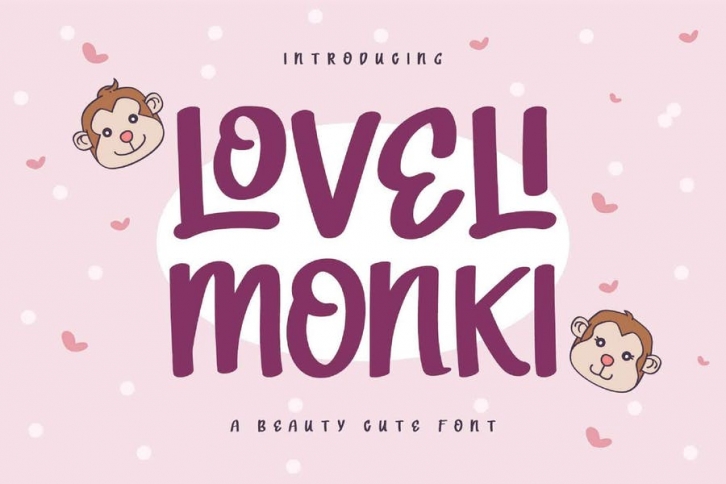
Loveli Monki is a cute and friendly display font. It embodies playfulness and authenticity and is the perfect choice for any children activity or school project. Add this modern lettered font to your designs and notice how it makes them come alive!